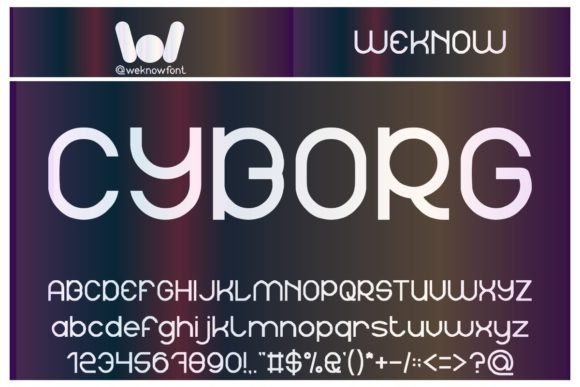
Get Ready to Upgrade Your Designs with the Cyborg Font
As a designer, have you ever found yourself stuck in a creative rut, searching for the perfect font to bring your futuristic vision to life? You’re not alone. We’ve all been there, scrolling through font libraries, trying to find that one font that screams ‘innovation’ and ‘boldness’. For me, that moment came when I stumbled upon the Cyborg Font – a sleek, modern sans serif font that instantly transports you to a world of sci-fi wonder.
The Cyborg Font is more than just a font; it’s a gateway to a futuristic universe of possibilities. With its bold lines and futuristic feel, it’s the perfect addition to any design project that requires a modern and innovative touch. Whether you’re designing a futuristic cityscape, a space-age gadget, or a cutting-edge tech brand, the Cyborg Font is the ultimate design tool to help you push the boundaries of creativity.
Cyborg Font Key Features
- Font Family: Cyborg Font is a sans-serif font family designed for futuristic and technological themes.
- Unique Characteristics: Features a blend of futuristic and industrial elements, with distinctive geometric shapes and sharp lines.
Cyborg Font Review
I recently had the chance to dive into the Cyborg Font, and I must say it’s a unique and intriguing typeface. Here are some of my thoughts:
- The font’s blend of mechanical and organic elements creates a visually striking design. It’s perfect for anyone looking to add a touch of futurism to their project.
- The font’s versatility shines through in its various weights and styles. From light and elegant to bold and edgy, the Cyborg Font has got you covered.
- The font’s legibility is surprisingly good, making it suitable for both digital and print applications.
- The font’s complexity can be overwhelming for some users. The multitude of styles and weights may be challenging to navigate, especially for beginners.
- The font’s bold styles can appear somewhat cluttered, which may not be ideal for projects that require a clean and minimalist aesthetic.
The Cyborg Font is a solid choice for designers and developers looking to add a futuristic twist to their projects. While it may have some limitations, its unique blend of styles and versatility make it a valuable addition to any design arsenal.
The Cyborg font is ideal for use in sci-fi themed designs, futuristic logos, and cyberpunk-inspired artwork. It’s also great for use in presentations and documents that require a futuristic and high-tech look.